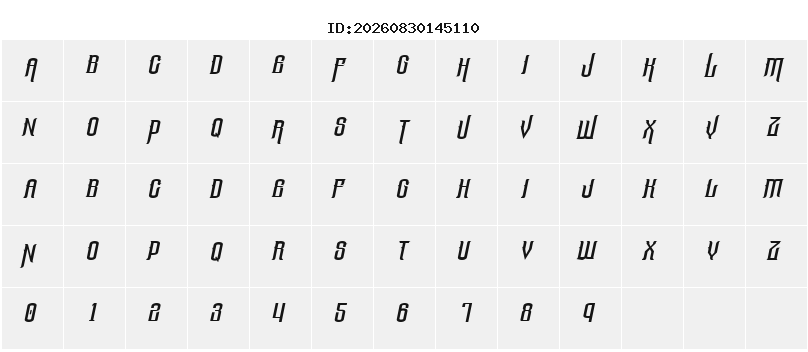
The Lost Canyon Preview
• Font Name: The Lost Canyon
• Full Font Name: The Lost Canyon Italic
• Version: Version 1.00 July 13, 2016, initial release
• Designer: Chris Vile
• Manufacturer: Font Monger
• Description: The Lost Canyon Italic is a font by Font Monger, designed by Chris Vile in 2016.
About The Lost Canyon.ttf
The Lost Canyon.ttf is a modern, elegant sans-serif font designed for ultimate readability and visual harmony. Perfect for branding, headlines, web design, and print materials.